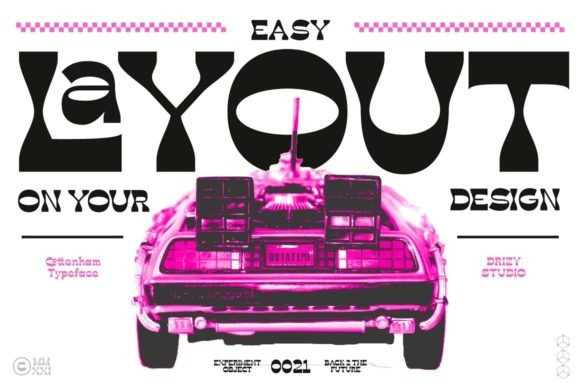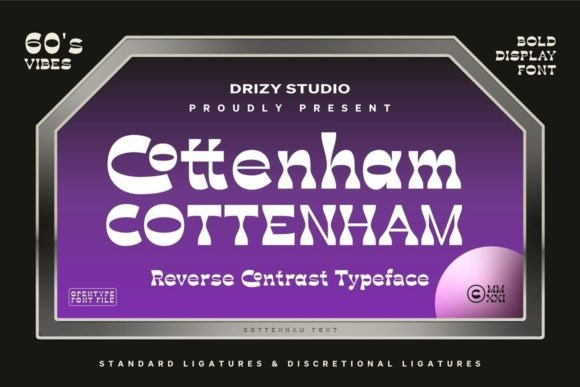
Cottenham Font
Cottenham Display Font is a unique futuristic display font that can elevate the look of any creative project! It’s a wonderful choice for movie titles, sci-fi books, posters, science magazines, and many others!